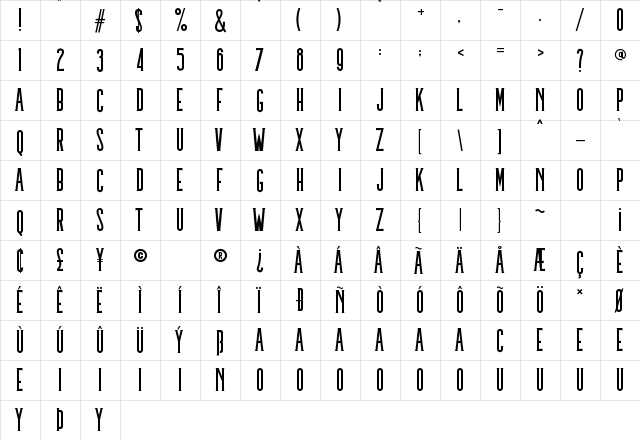
Mosherif High Regular
Design Context for Mosherif High Typeface
Mosherif High takes a measured approach to typography — its balanced proportions and neutral character make it a reliable workhorse for both digital and print work.